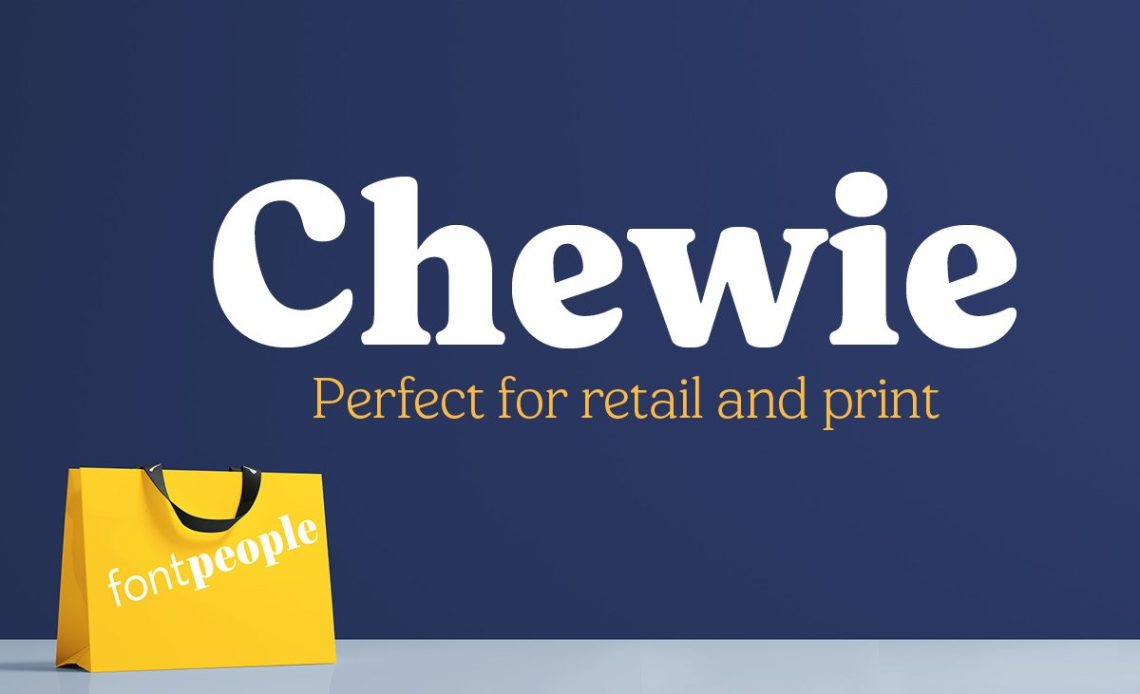
Looking for the perfect font to elevate your blog text? Look no further than the Chewie font family by FontPeople, designed by the talented Jason Harcombe. This serif font combines the best of popular 1970s typefaces, incorporating soft and gentle shapes from Cooper and fluid, angled strokes from Windsor to create a fresh, modern design.
One of Chewie's greatest strengths is its versatility, with a variety of weights that can be used to create the perfect typographic color for any project. Lighter weights are perfect for body text, while heavier ones pack a punch in headlines and display.
But Chewie isn't just a pretty face. Its attention-grabbing design is sure to captivate your readers and leave a lasting impression. Whether you're looking to add a touch of nostalgia to your blog or create a bold, modern look, Chewie has you covered.